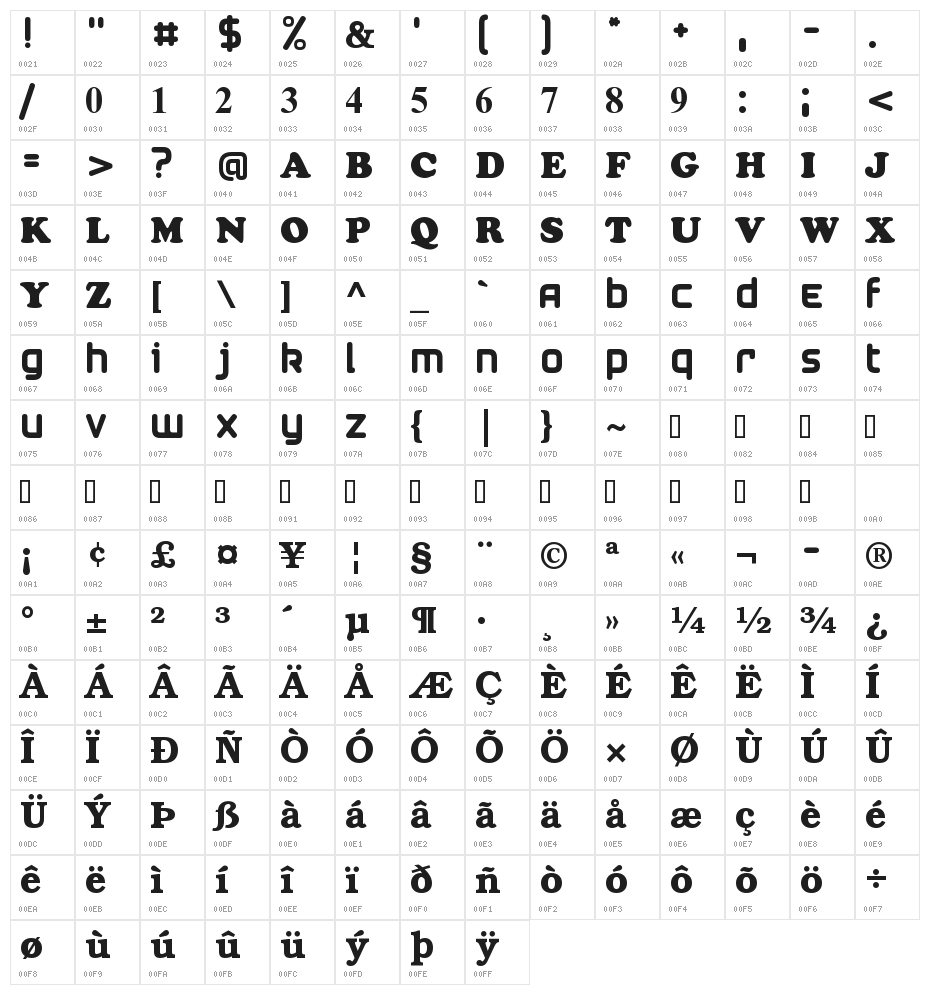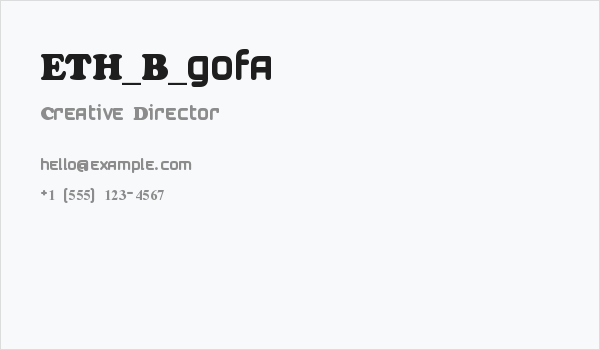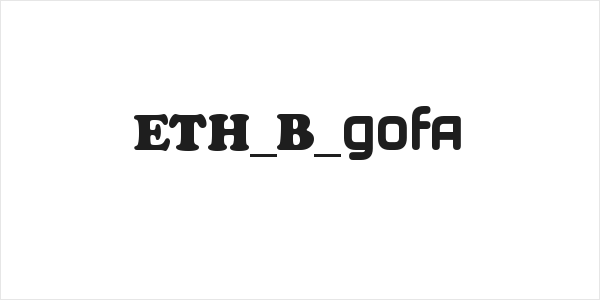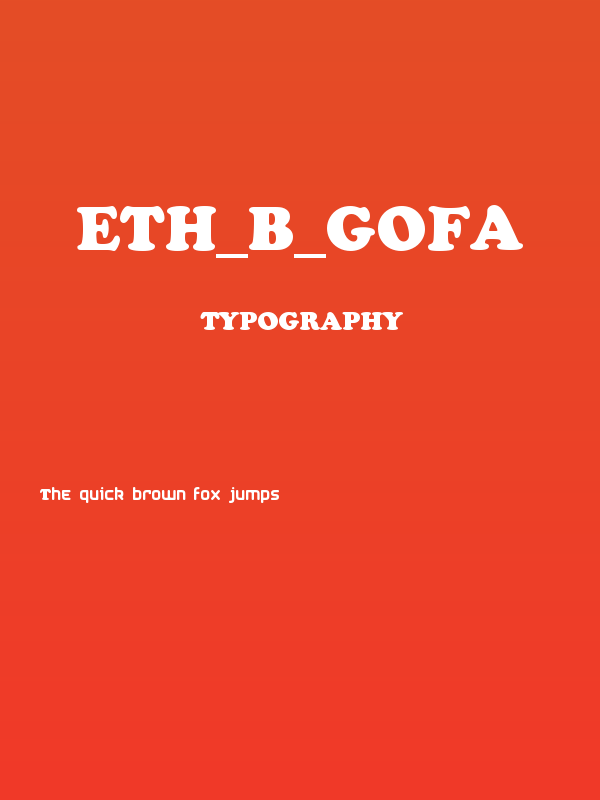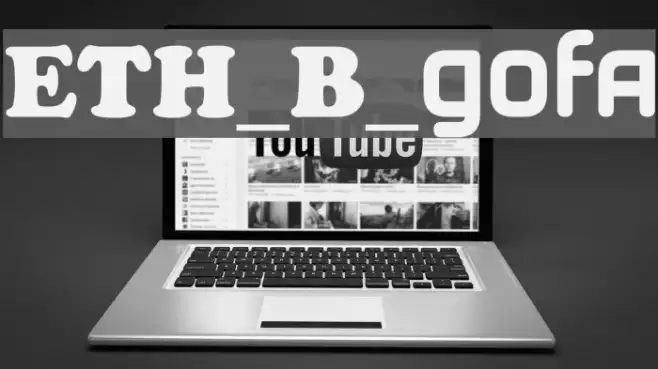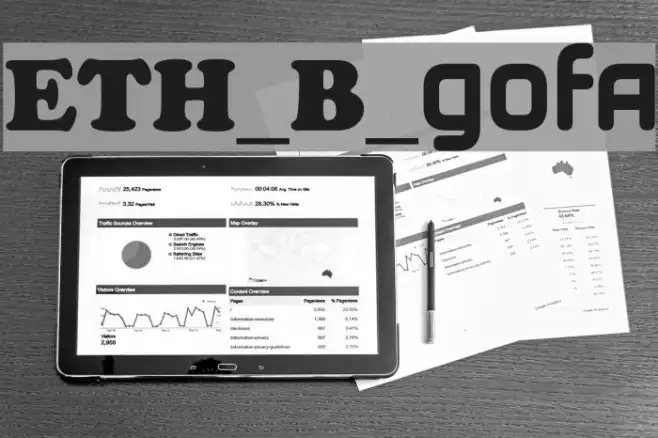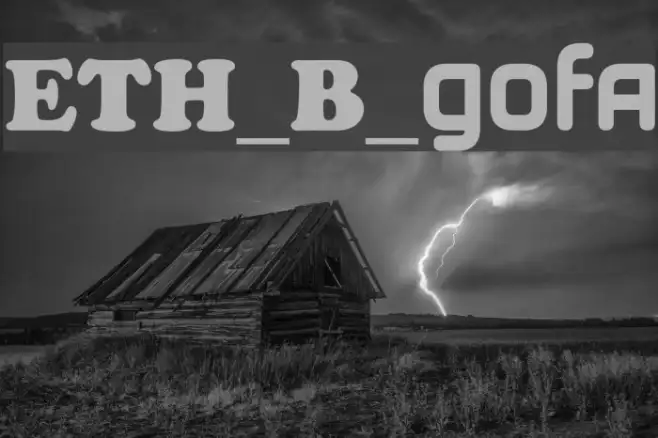
ETH_B_gofa Font
ETH_B_gofa Description
This font features a bold and playful design with rounded edges and a strong presence. The uppercase letters are particularly striking, with a slight vintage flair reminiscent of classic signage. The lowercase letters maintain a consistent style, offering a smooth and approachable look. Numbers are clear and easy to read, making them suitable for various applications. Special characters are well-integrated, ensuring versatility in design projects. The overall aesthetic is both modern and retro, making it a unique choice for creative endeavors.
| Proposed Projects | Ideal for branding, posters, and retro-themed designs. |